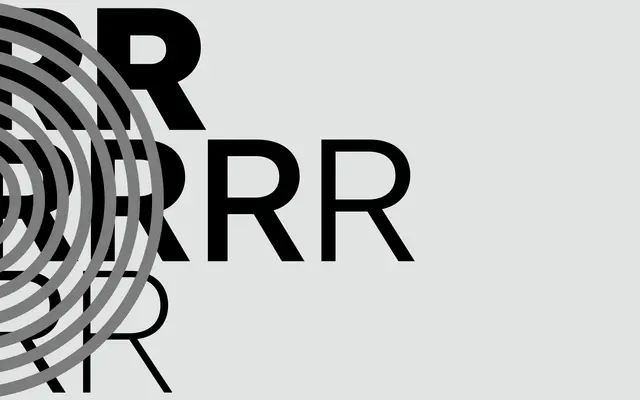
Recognition
A2-Type · 2003
Originally drawn in 2003 for an Arnolfini Gallery catalogue, this sturdy grotesque has since expanded into a family of eight weights with slanted italics.
Commissioned for the 'Recognition' exhibition catalogue at the Arnolfini Gallery in Bristol, the typeface began as a single-weight workhorse and was later developed into a full family of sixteen styles. Eight weights run from Thin to Heavy, each paired with a slanted italic. The construction is solid and unpretentious, suited to institutional, editorial and wayfinding contexts.
A sturdy, upright sans with slanted italics rather than true italics, sitting in the grotesque tradition with even strokes and solid construction across a wide weight range.
ThinLightRegularMediumBoldExtraboldBlackHeavy